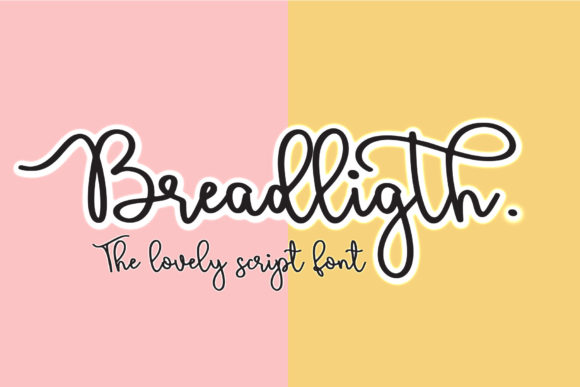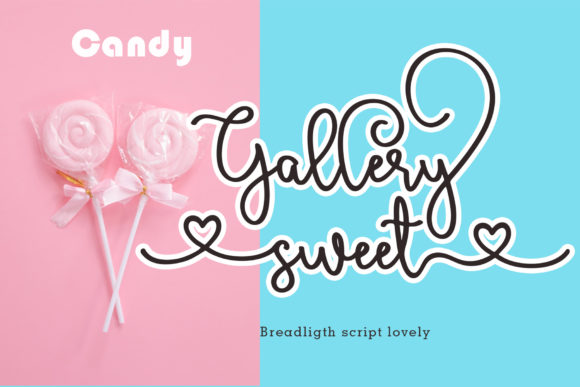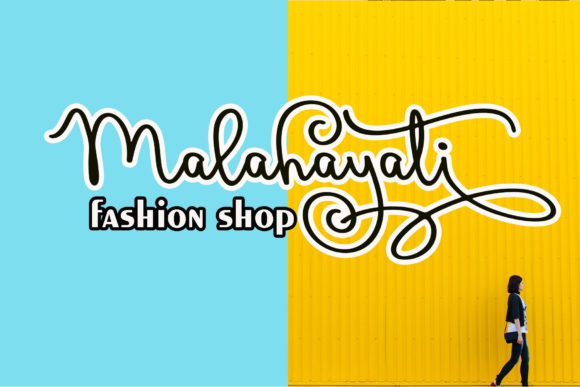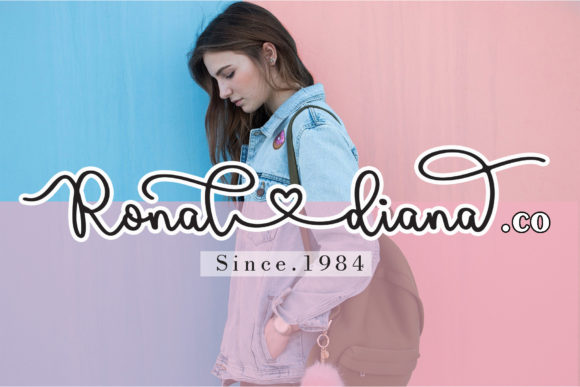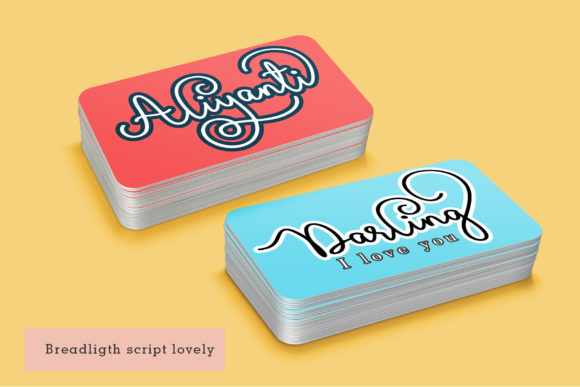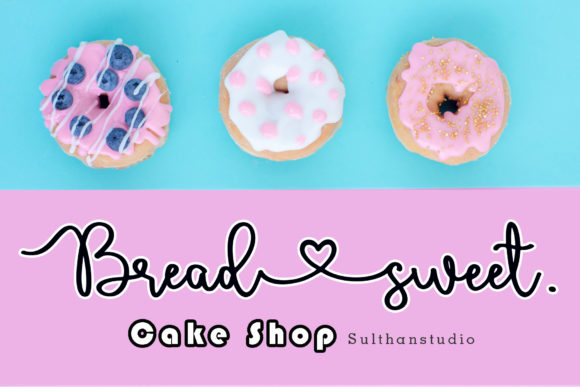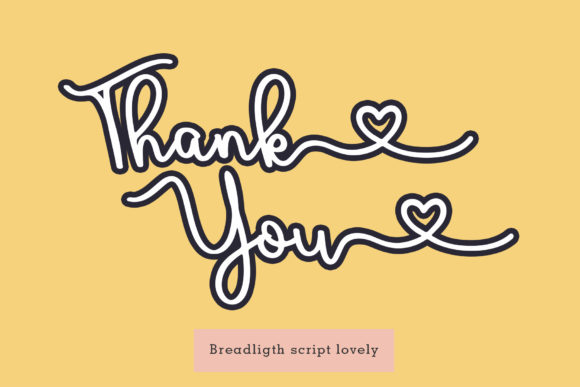
Bread Ligth Font
About Bread Ligth Font
Bread Ligth is a handwritten and charming script that will turn any design idea into a true standout. Get inspired by its unique charm!